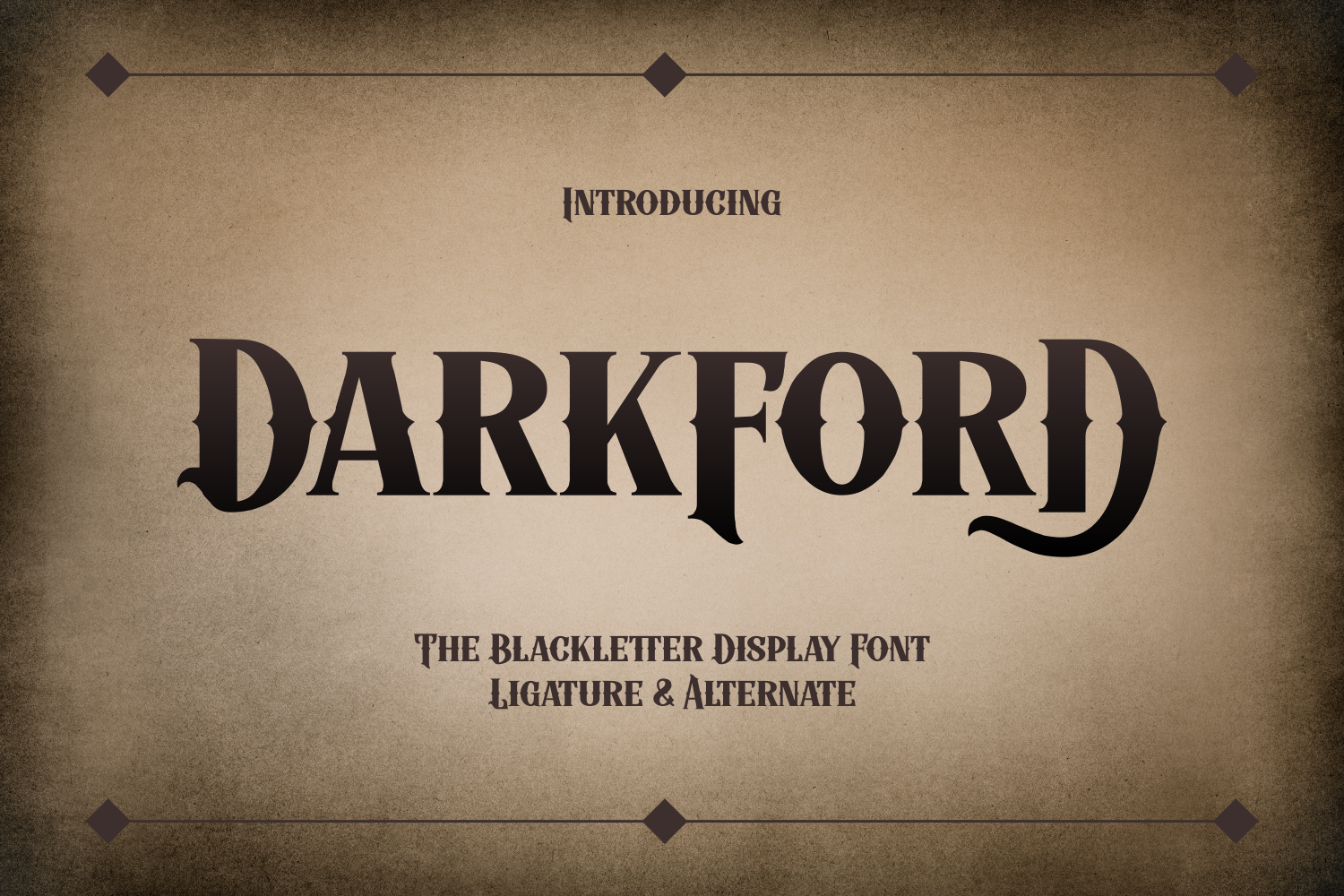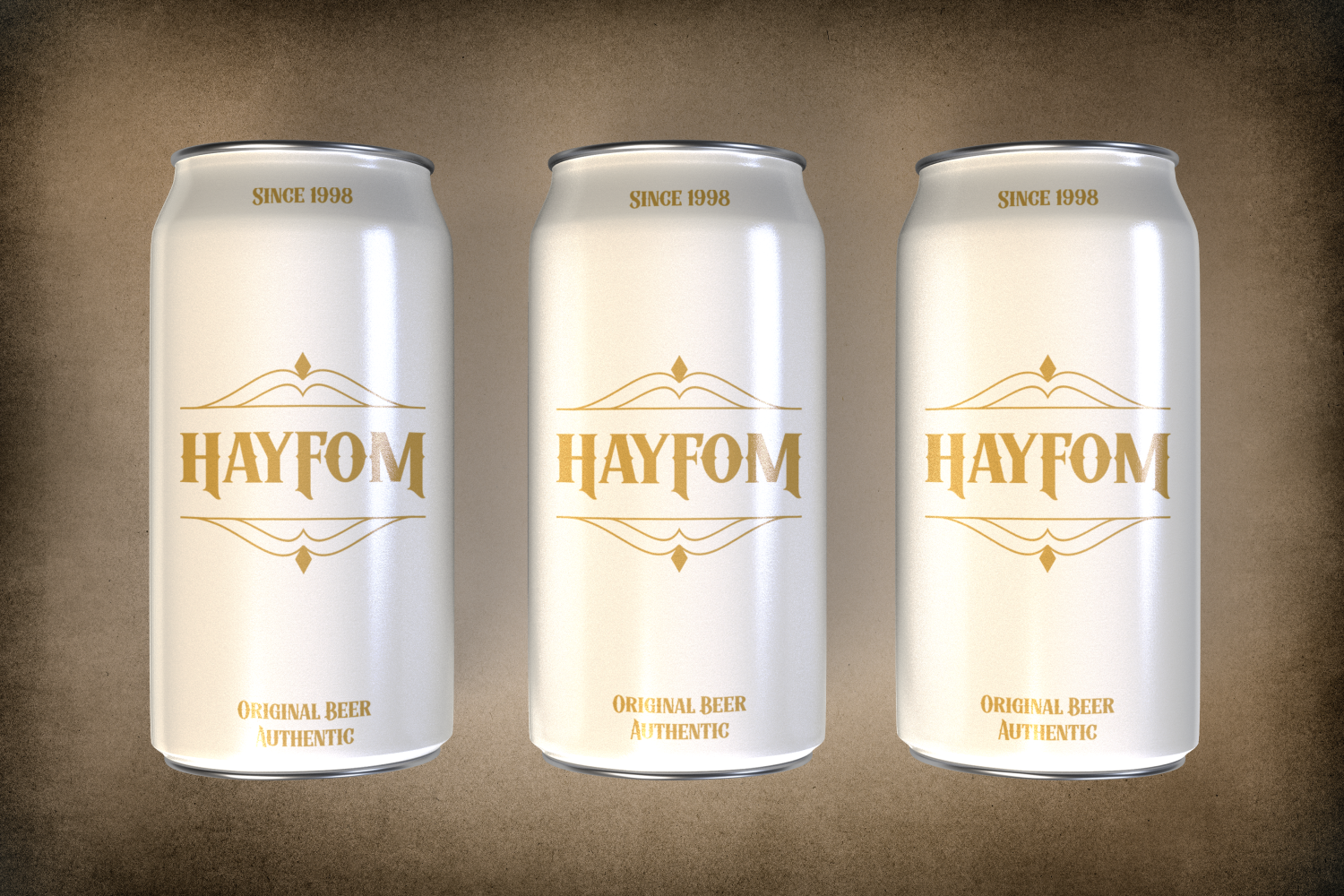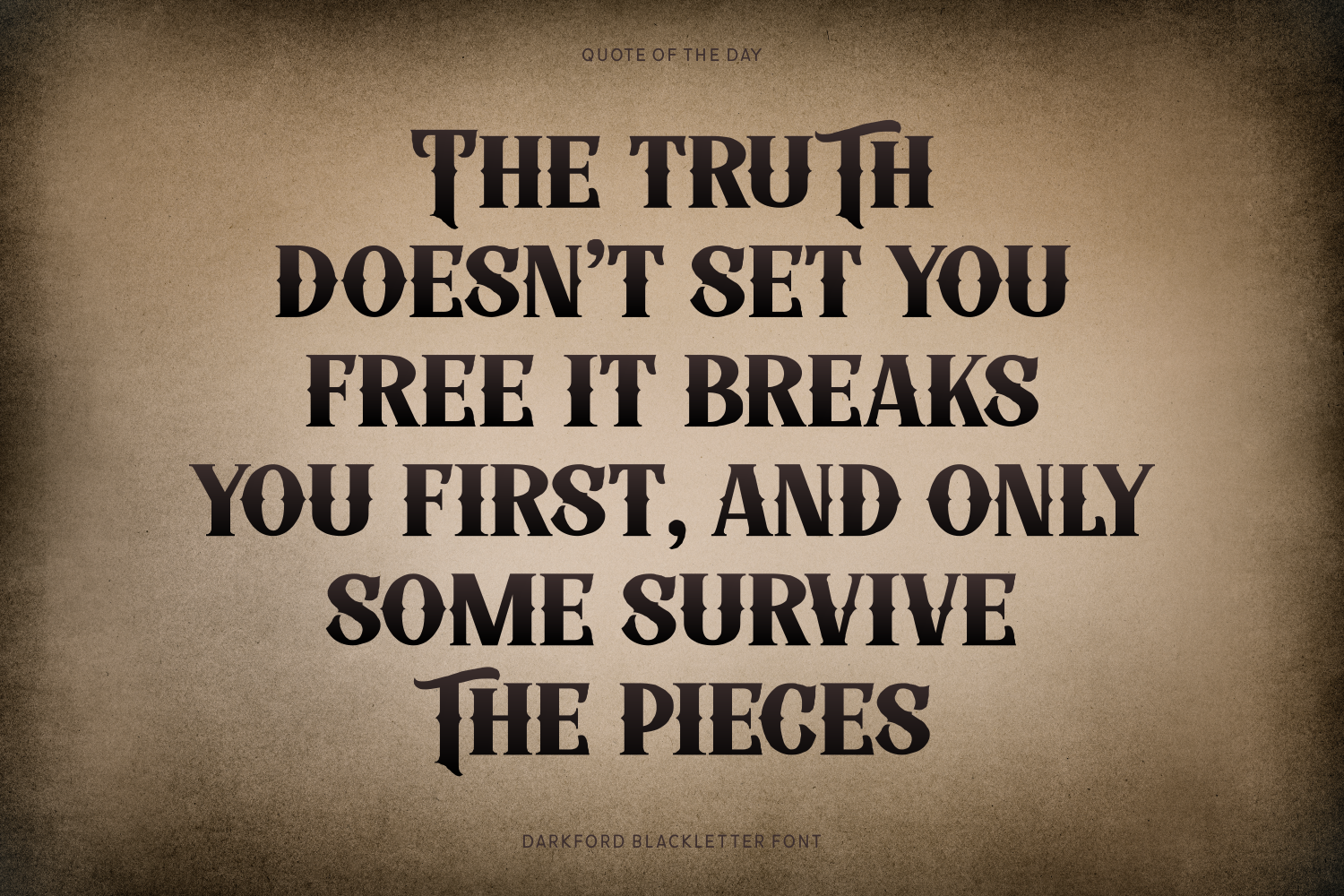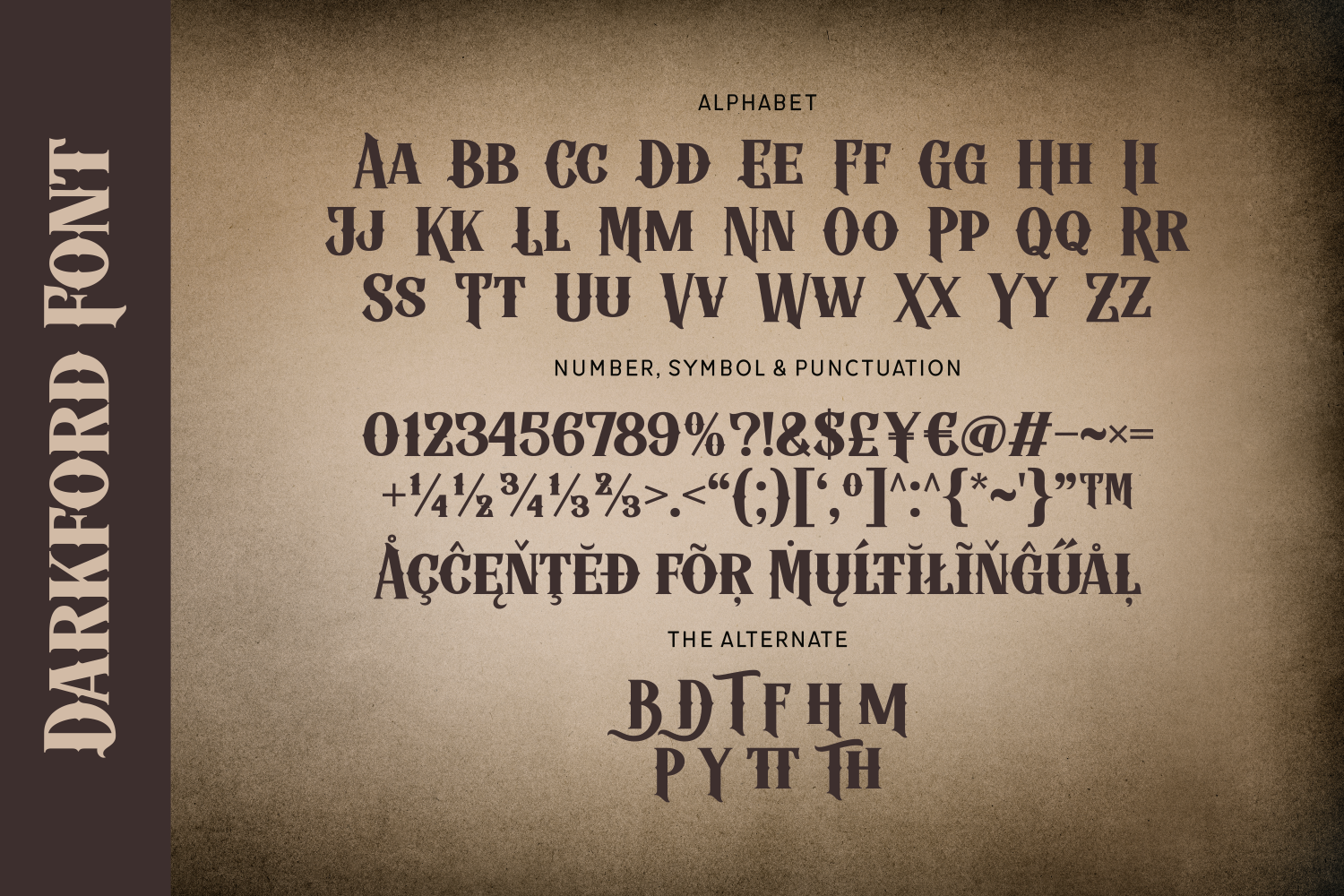
Darkford is a sleek and modern take on blackletter design, merging classic medieval elements with clean, contemporary lines. Its bold forms and elegant ligatures make it perfect for branding, editorial layouts, fantasy titles, and upscale packaging. With stylistic alternates included, Darkford offers flexibility and flair for any design that needs a strong, timeless impression.